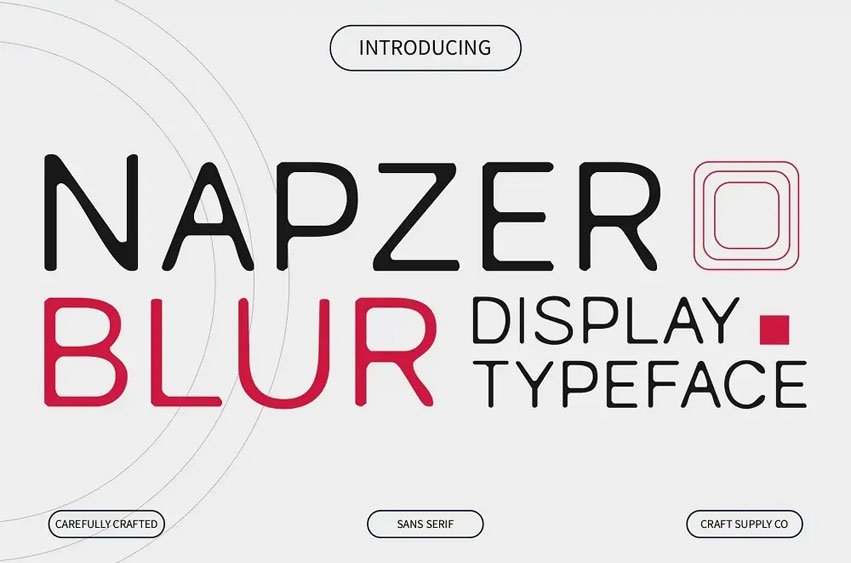
Napzer Blur Font is a display font of modern style with blur effect suitable for most designs that need to have a gentle and catchy look. Its blur feature gives it the much-required and cool touch and is suitable for any product design, posters and fliers, logos and so on.
It is website, branding, editorial design, and promotional materials friendly thus making it versatile to use. This makes it to have a softer and smoother look that gives your designs that classy look that you desire.